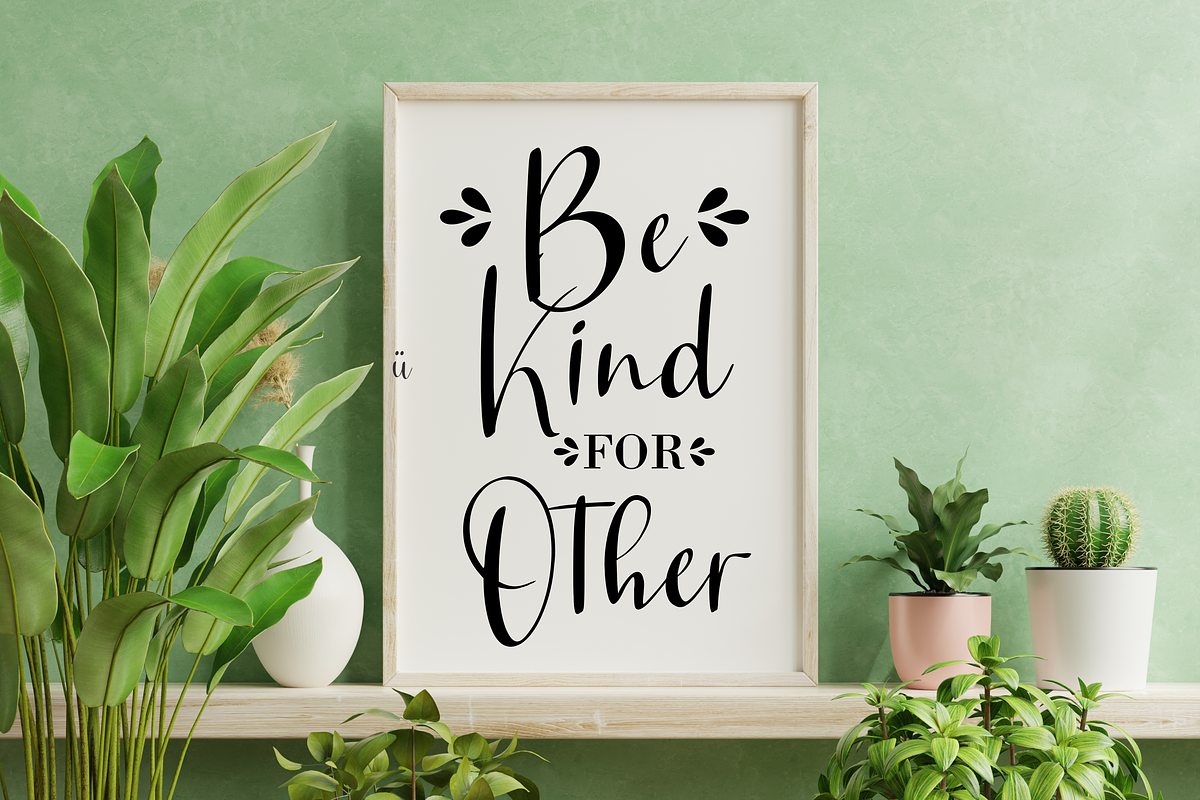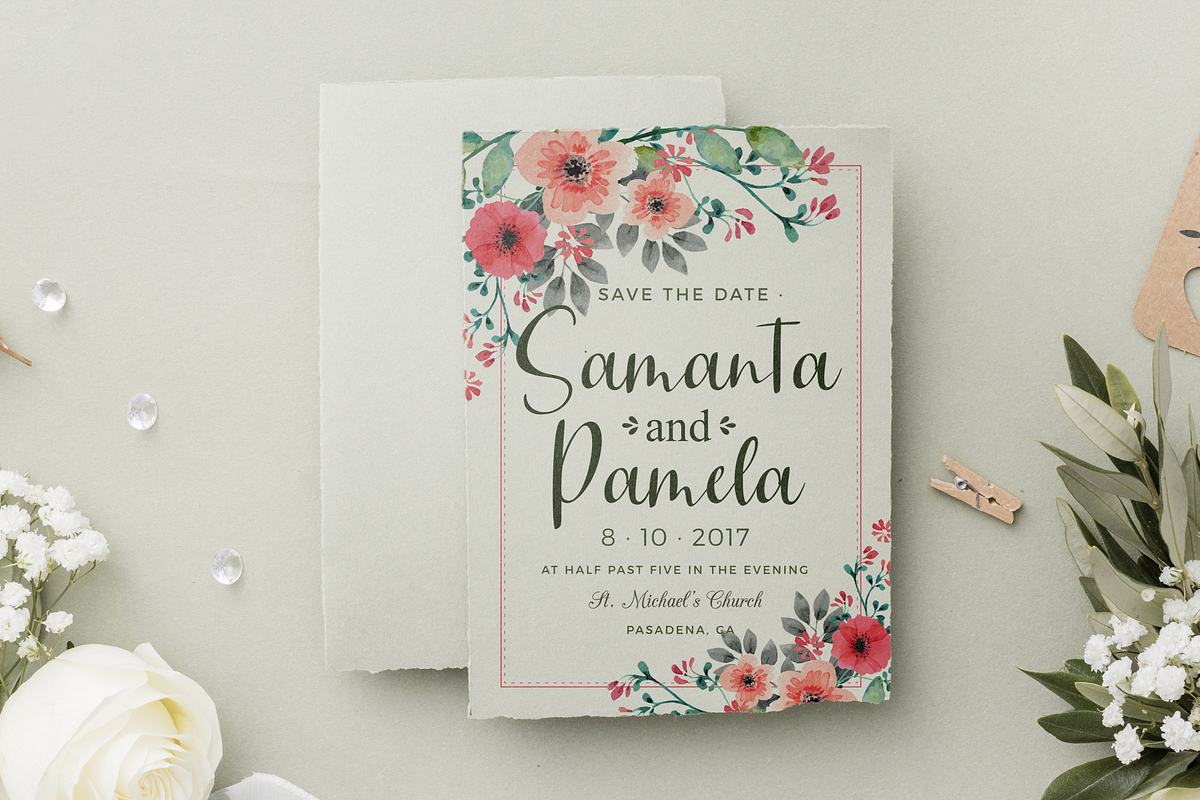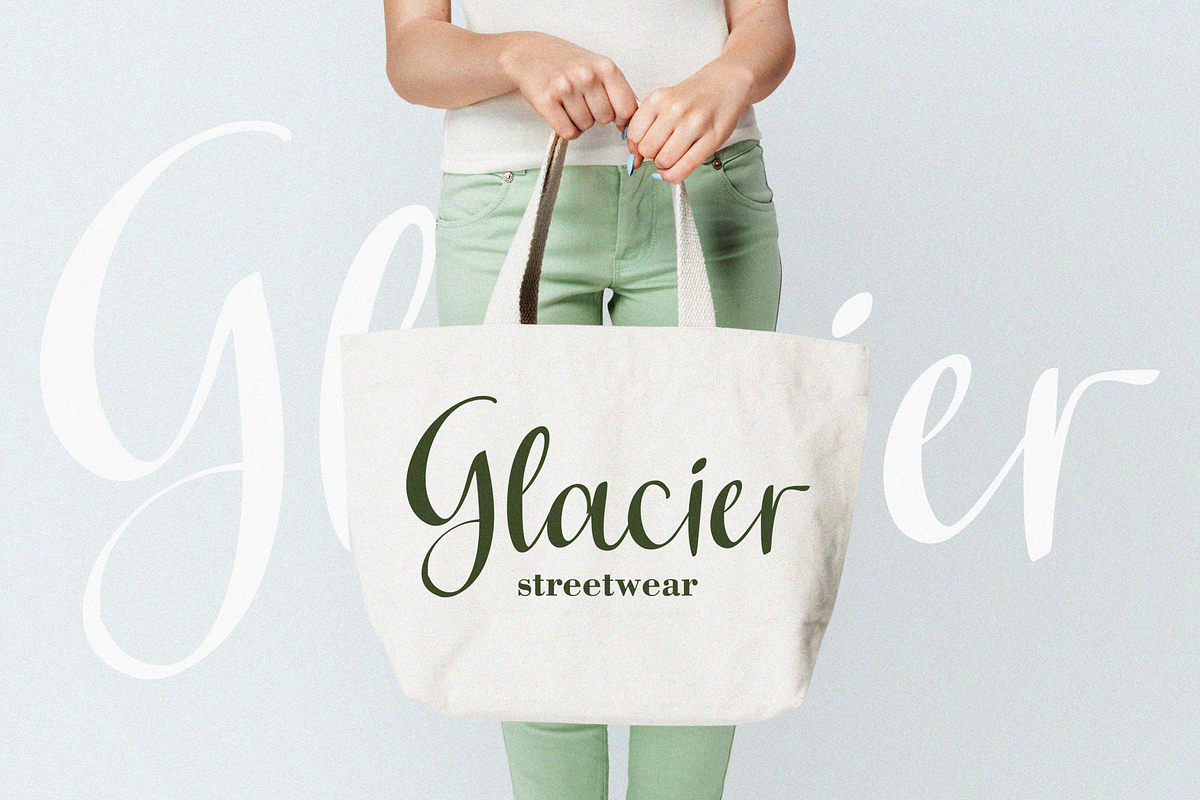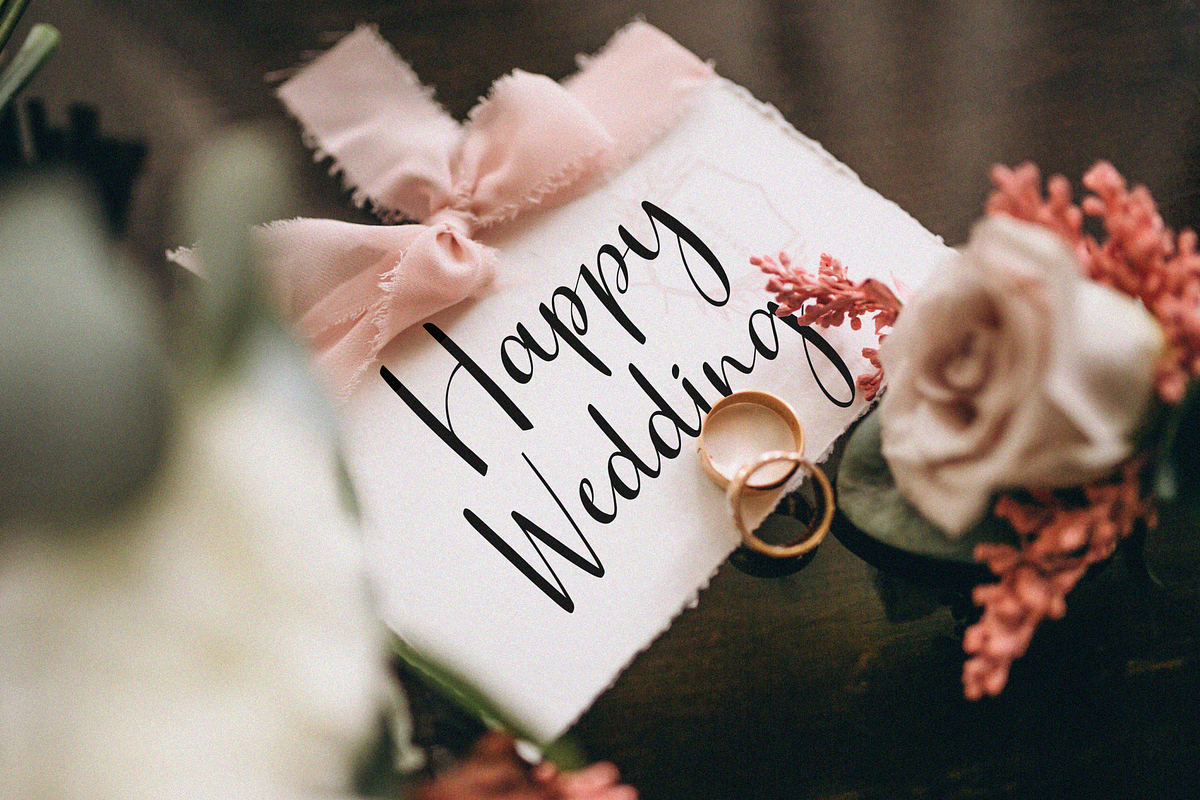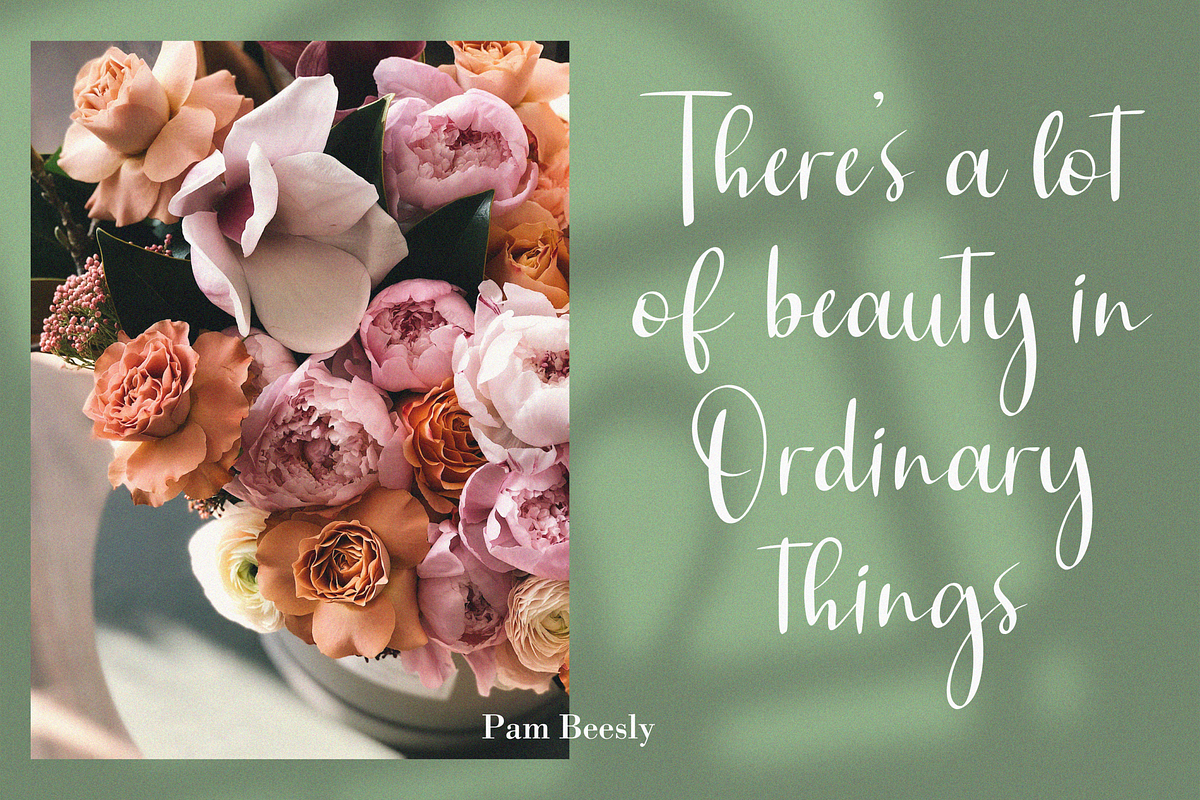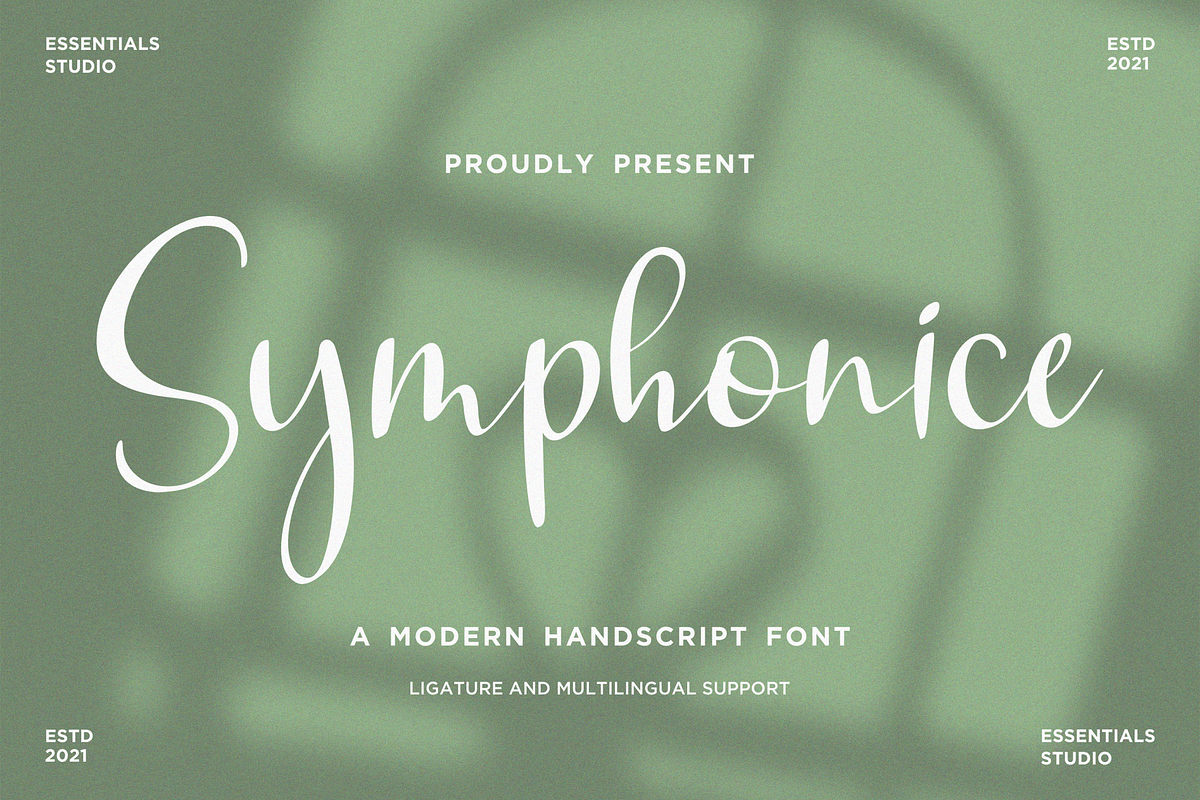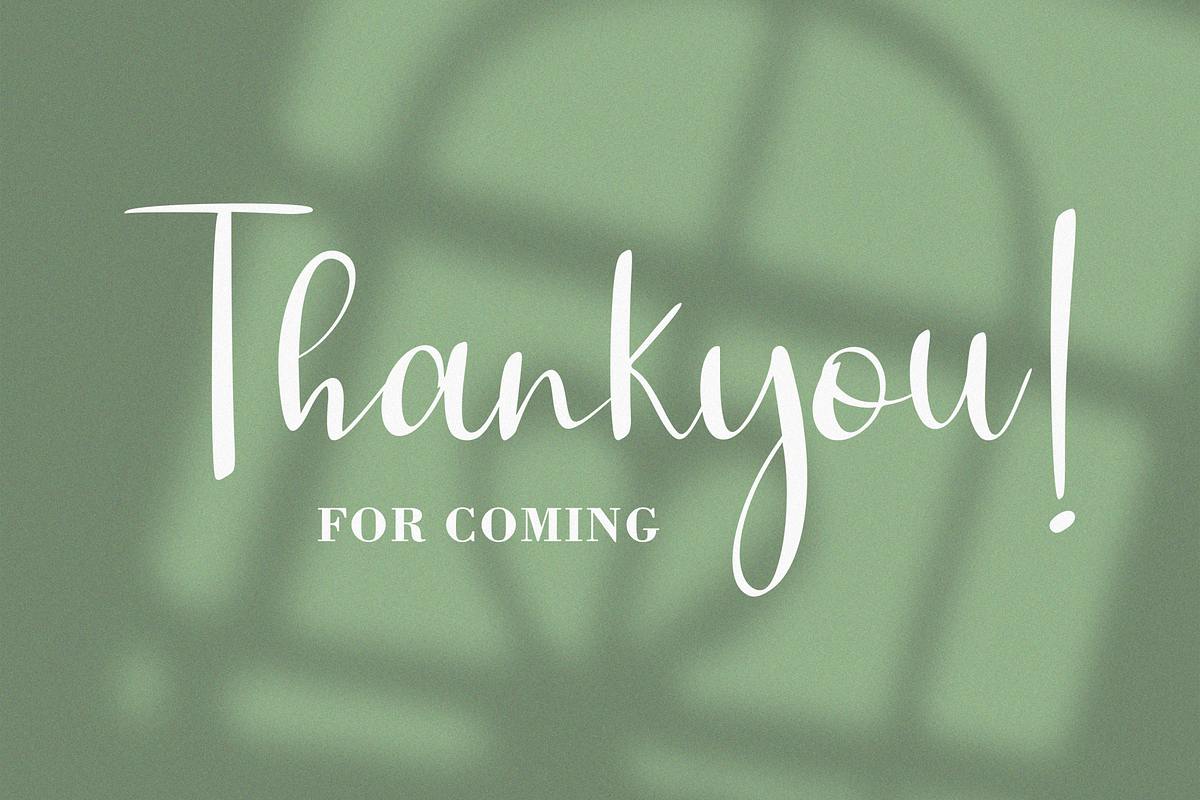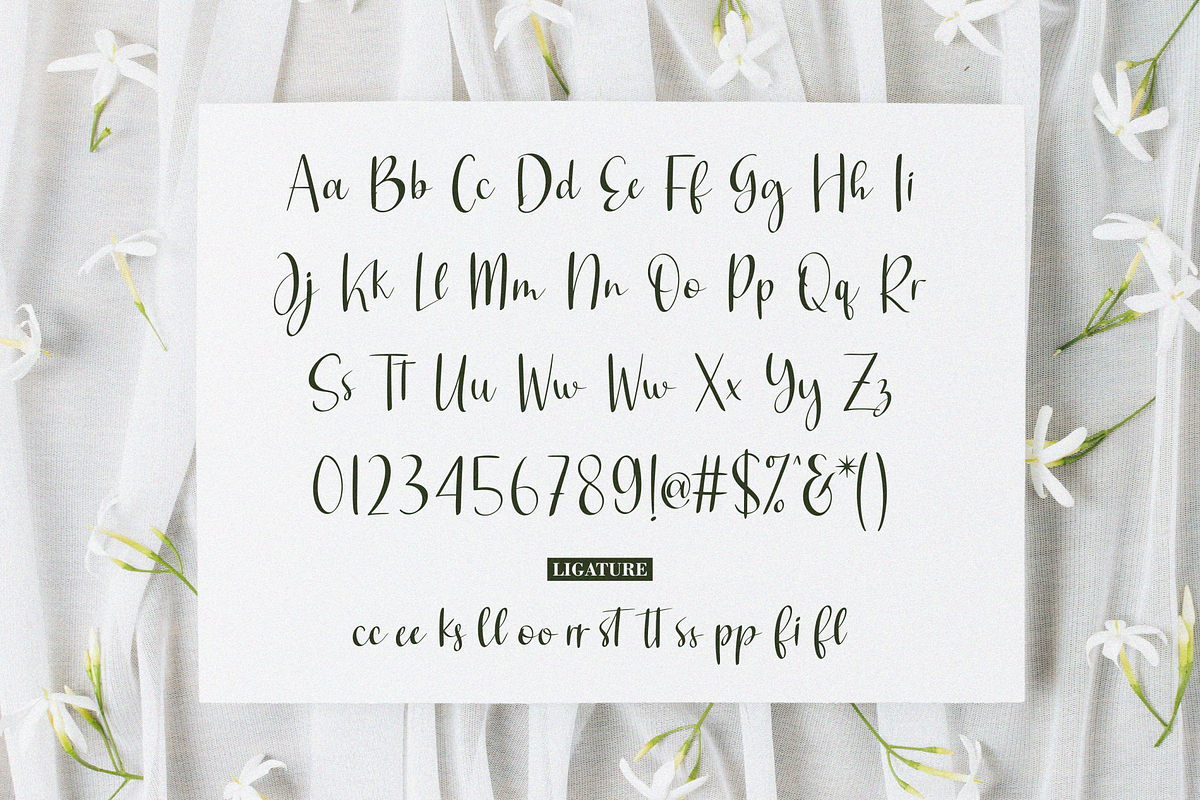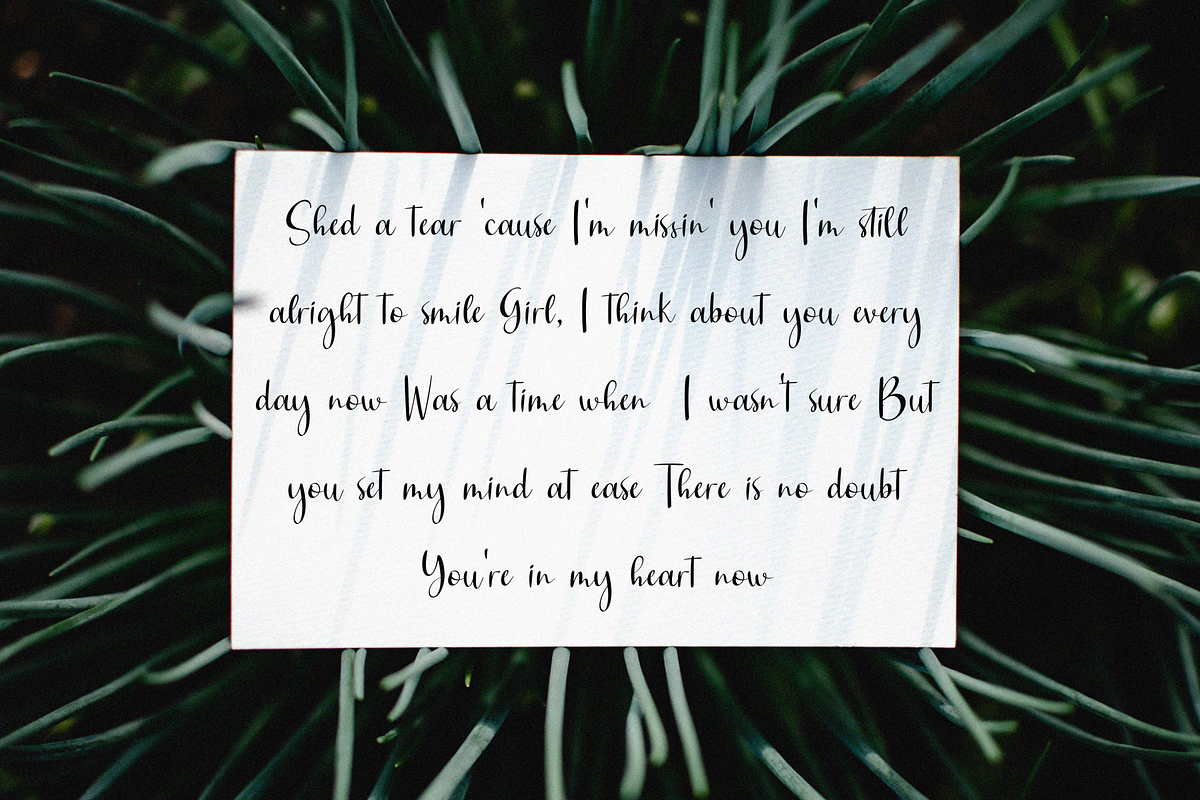
Symphonice
Introducing by Essentials Studio
Proudly Present, Symphonice Is a Modern HandScript Font
Symphonice is perfect for product packaging, branding project, megazine, social media, wedding, or just used to express words above the background.
This Font Also Multilingual Support